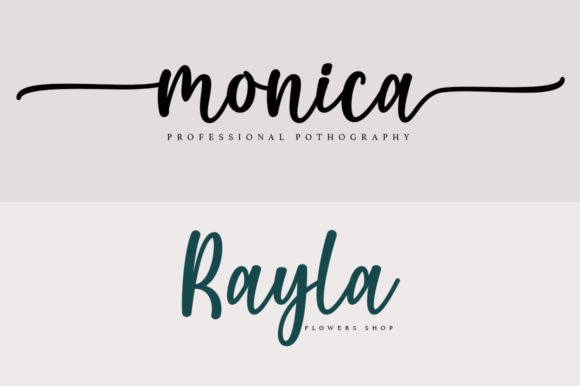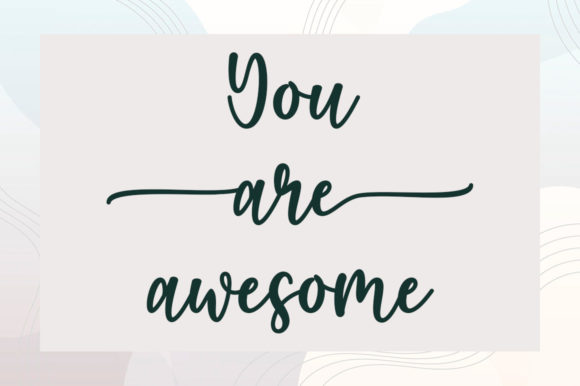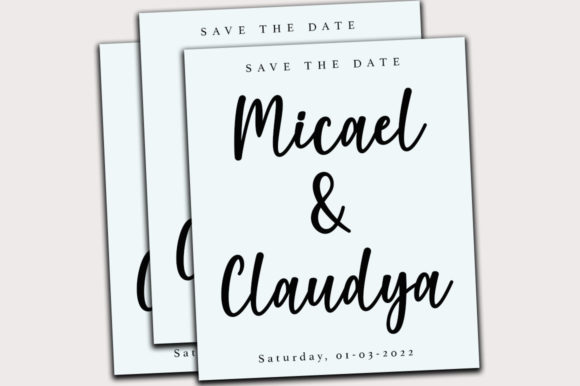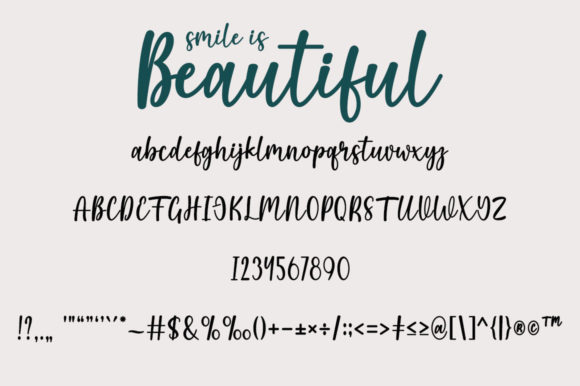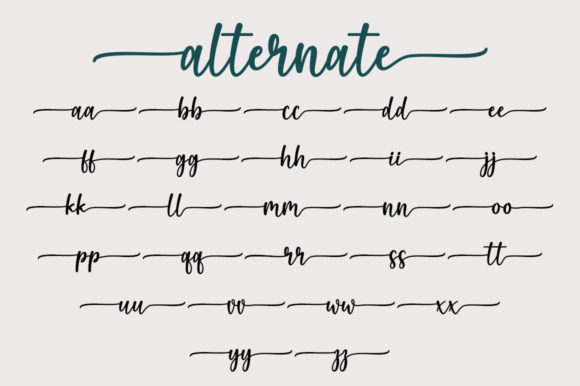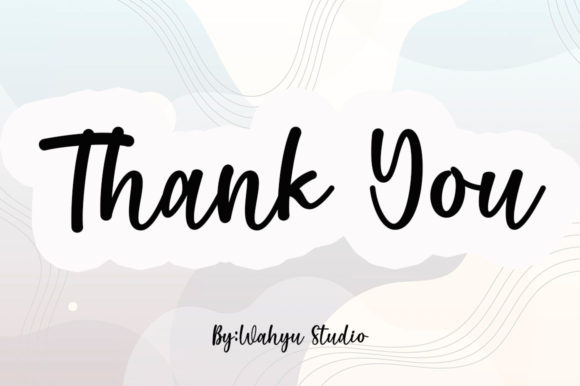
Introduction to Smile is Beautiful Font
As a designer, there’s nothing quite like the rush of excitement you feel when you stumble upon the perfect font for your next project. It’s that moment when everything clicks, and your vision starts to take shape. For me, that moment happened when I discovered the Smile is Beautiful Font. Its elegant, flowing lines and timeless style made my creative heart skip a beat.
But what makes Smile is Beautiful Font truly special is its versatility. Whether you’re working on a high-end design project or a simple social media graphic, this font is the perfect addition to your toolkit. With its PUA encoding, you can easily access all of the glyphs and swashes, making it a valuable resource for any designer looking to add a touch of sophistication to their work.
Key Features of Smile is Beautiful Font
- High-quality, hand-drawn design perfect for creative projects and advertisements
- Includes 6 unique font styles, each with its own distinct personality
- Includes a comprehensive character set, including uppercase and lowercase letters, numbers, and punctuation marks
Honest Review: Smile is Beautiful Font
As a designer, I’m always on the lookout for high-quality design resources that can elevate my creative projects. Recently, I stumbled upon the Smile is Beautiful Font, and I’m excited to share my honest review.
- ✨ The font is incredibly versatile and can be used for a wide range of creative projects, from logo design to editorial work.
- ✨ The font is highly customizable, allowing designers to adjust the style and layout to suit their needs.
- ✨ The font has a transparent background, making it easy to use on complex designs and backgrounds.
- ⚠️ The font is not suitable for use in situations where a bold, condensed font is required.
Use the Smile is Beautiful Font with a transparent background to create a seamless design. Experiment with different font sizes and styles to add visual interest to your project.
The Smile is Beautiful Font is ideal for use in creative projects, such as logos, social media graphics, and marketing materials. It’s also a great resource for designers who need a high-quality, free font to use in their designs.